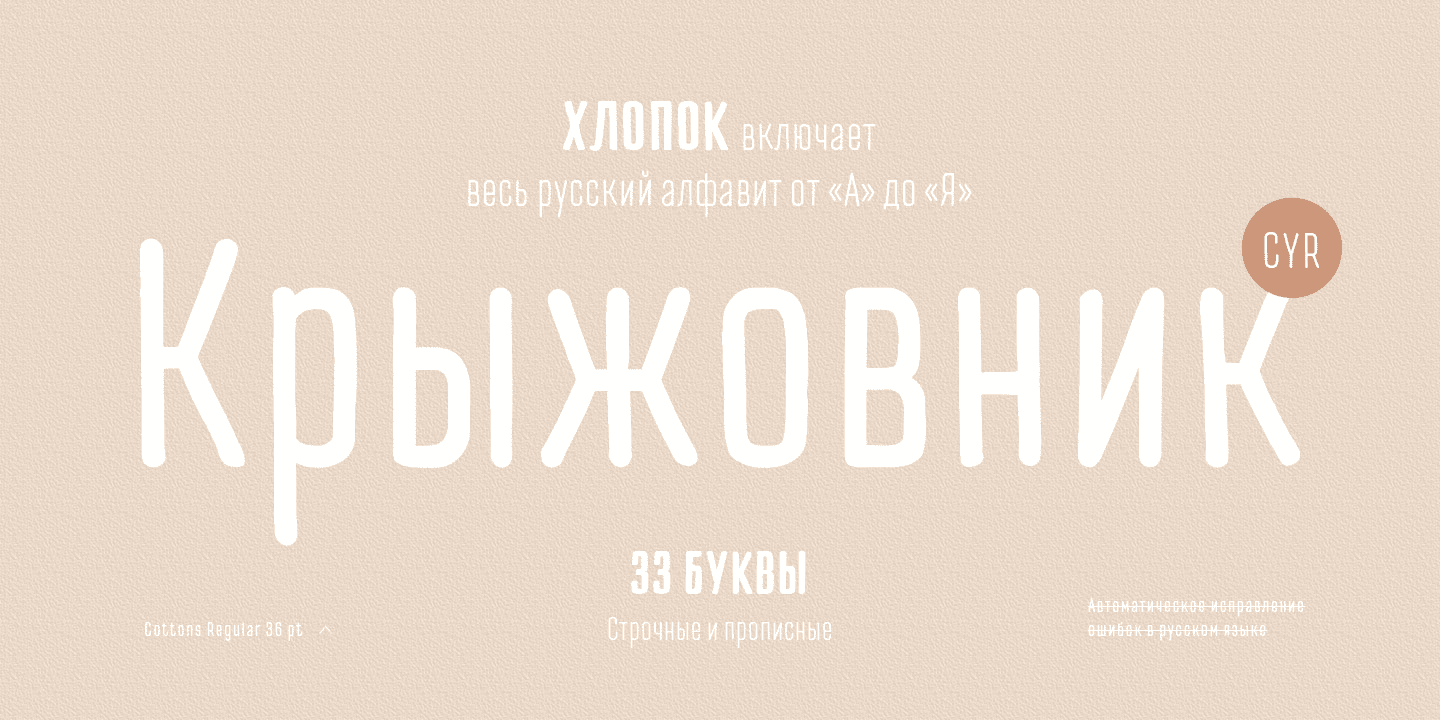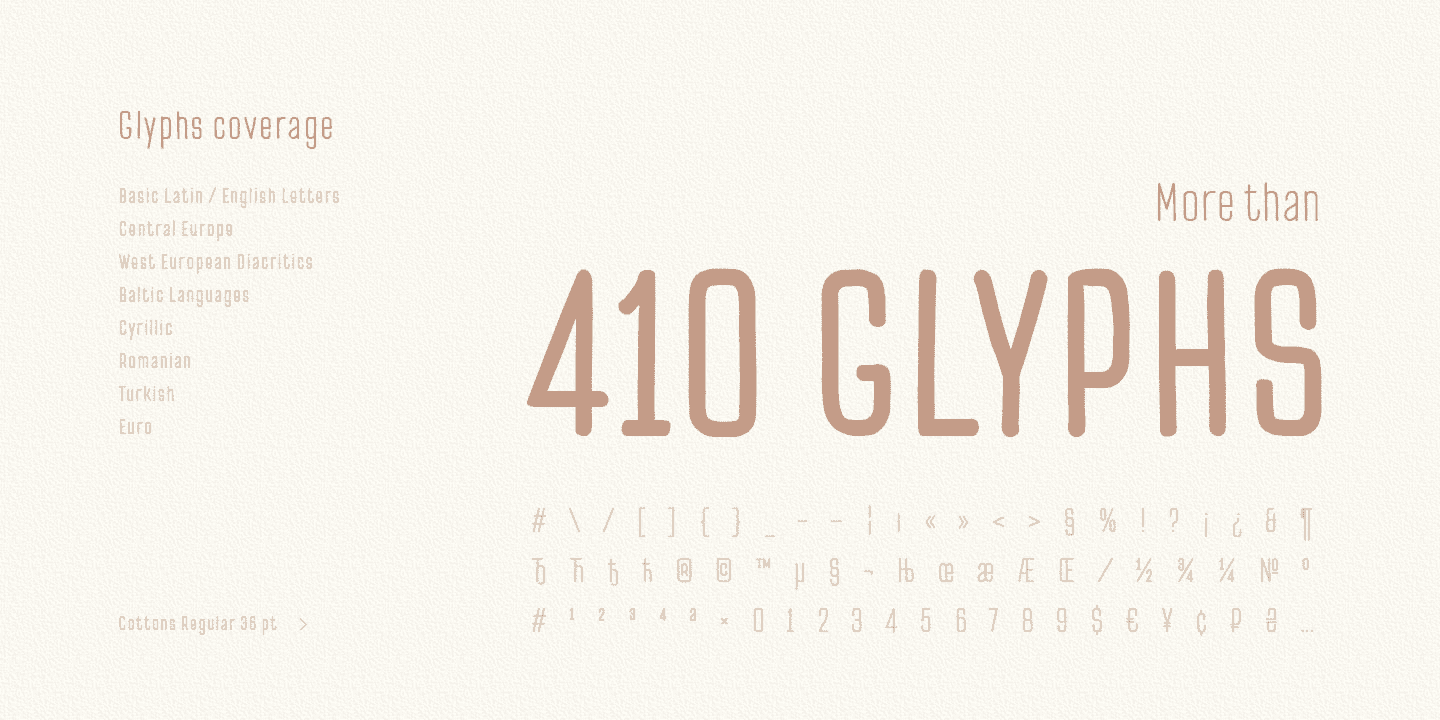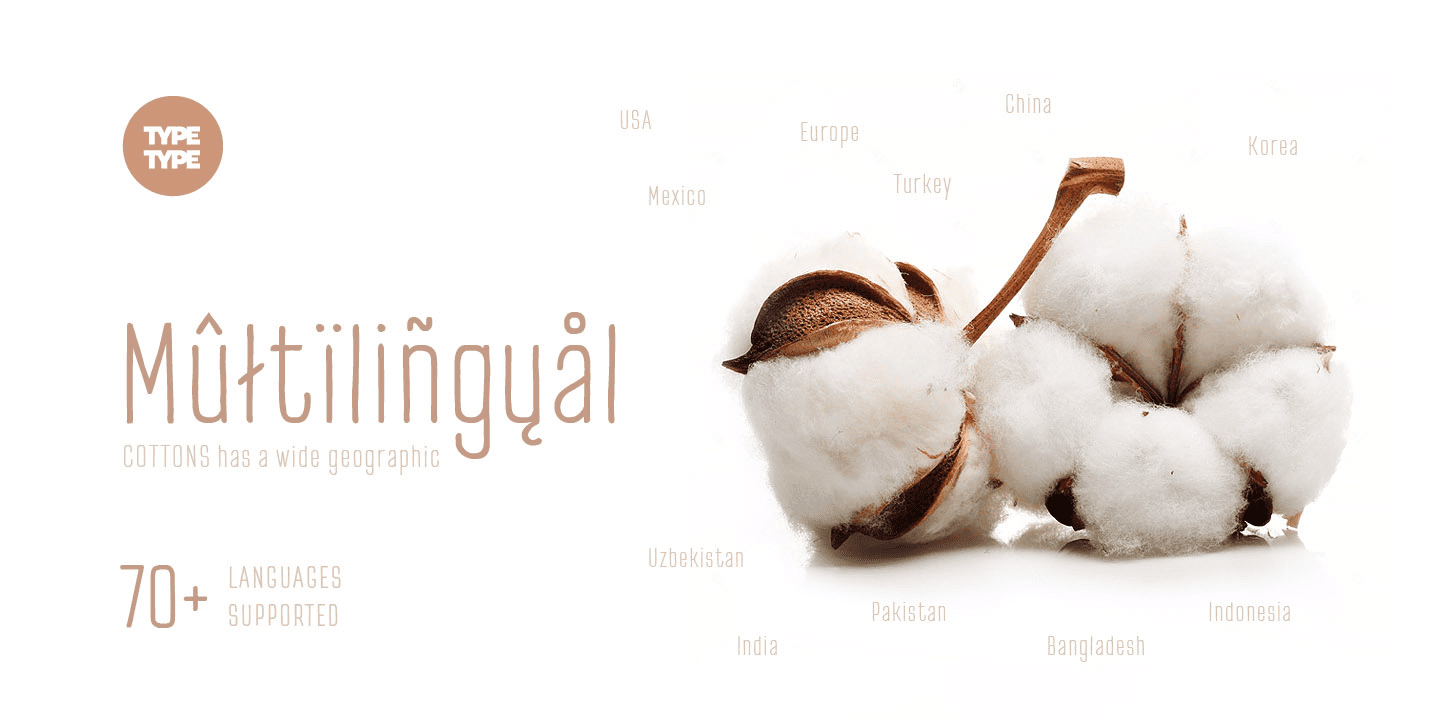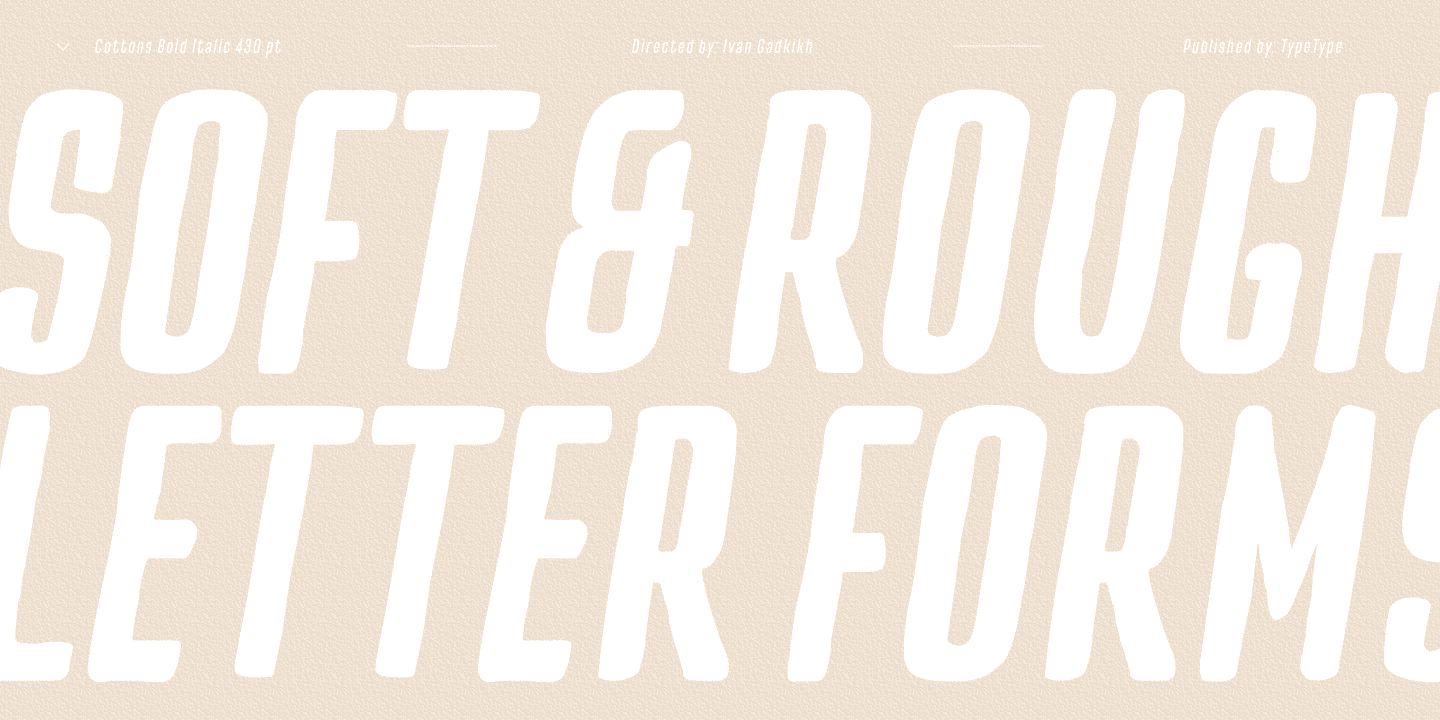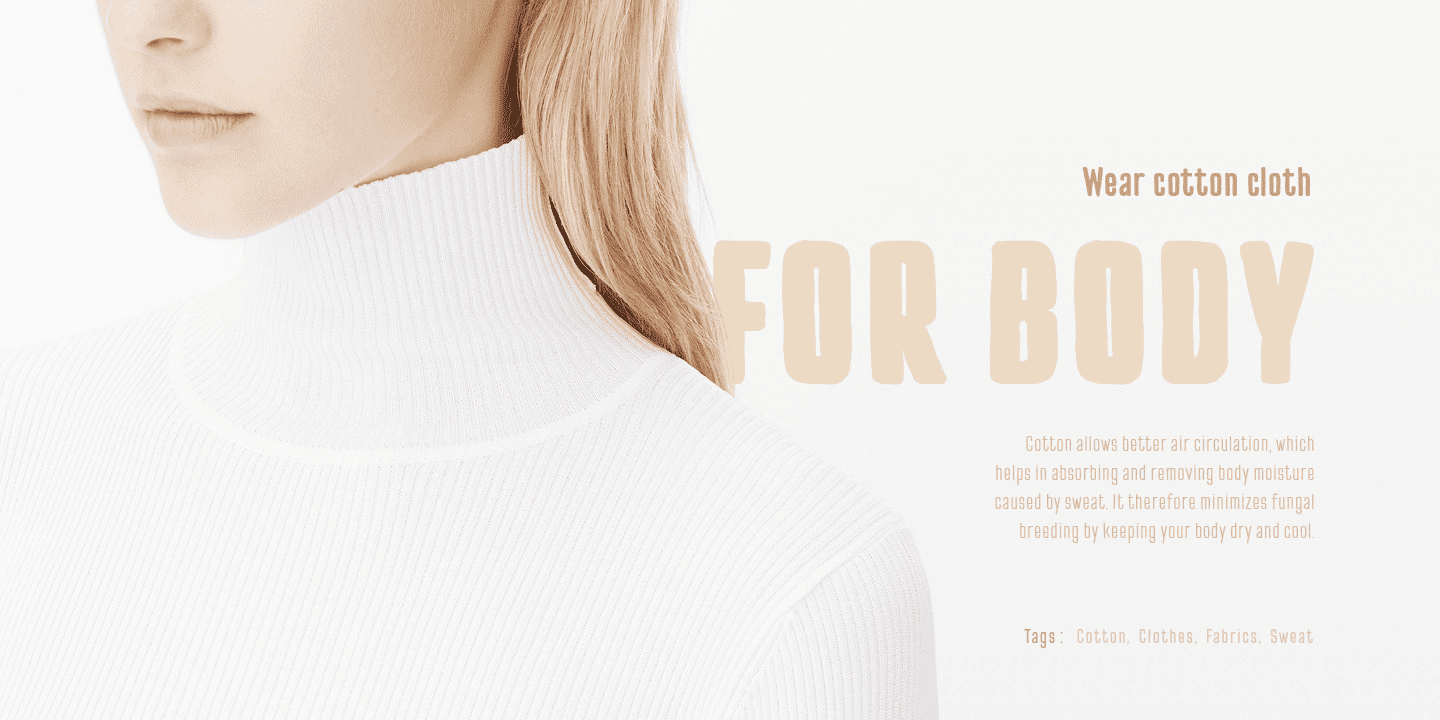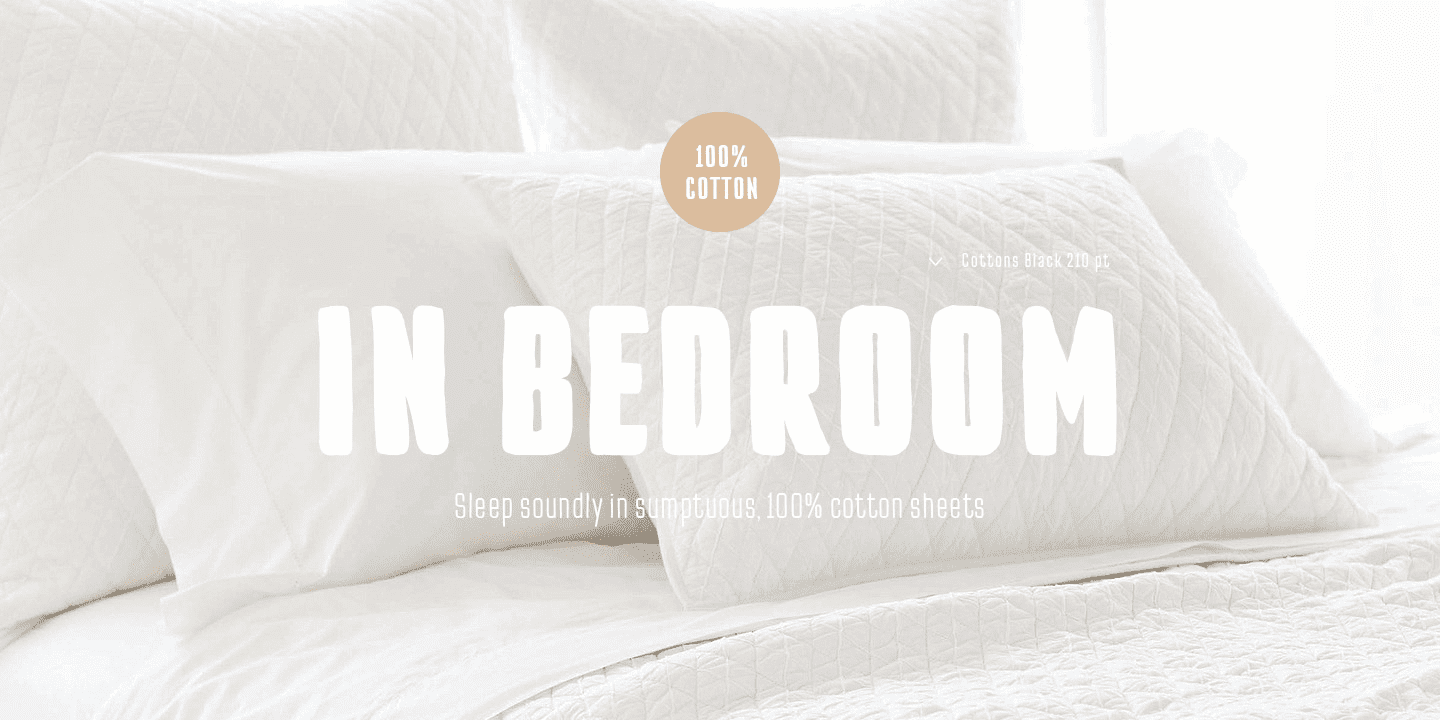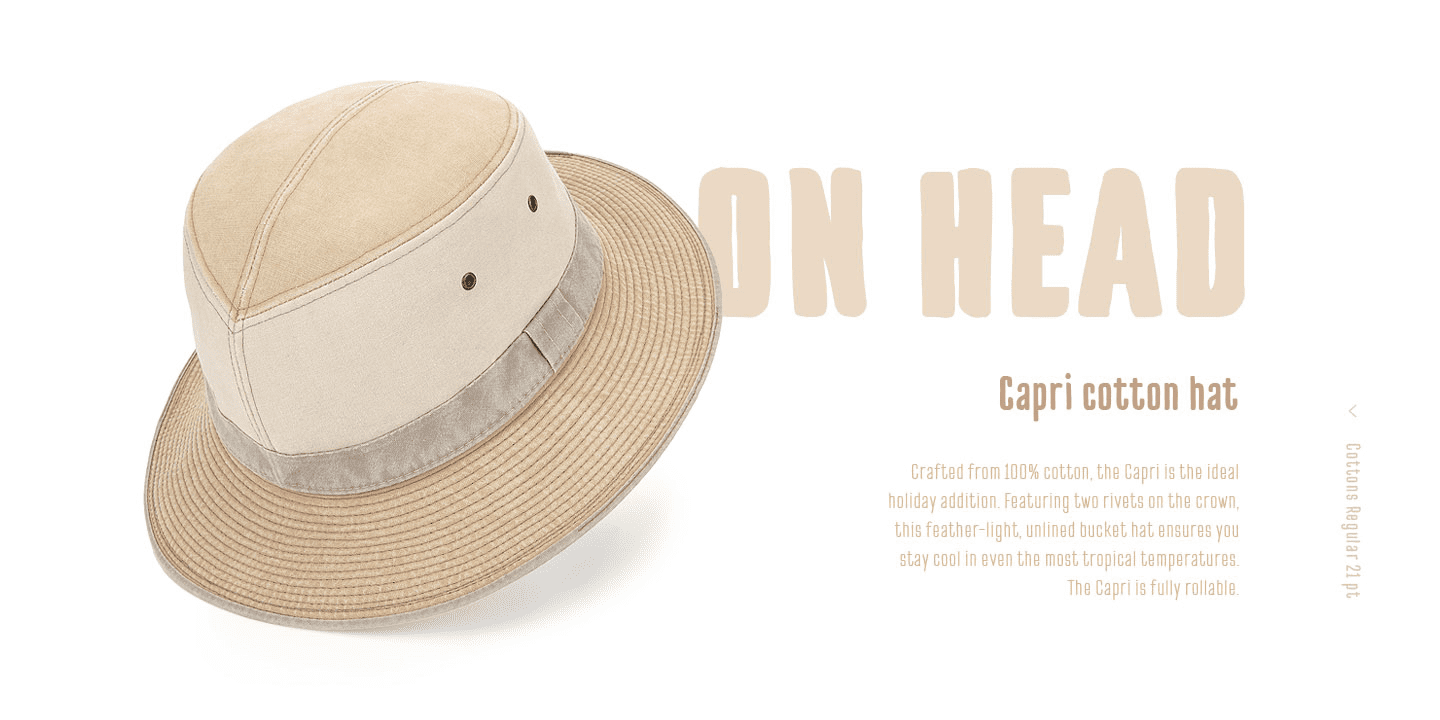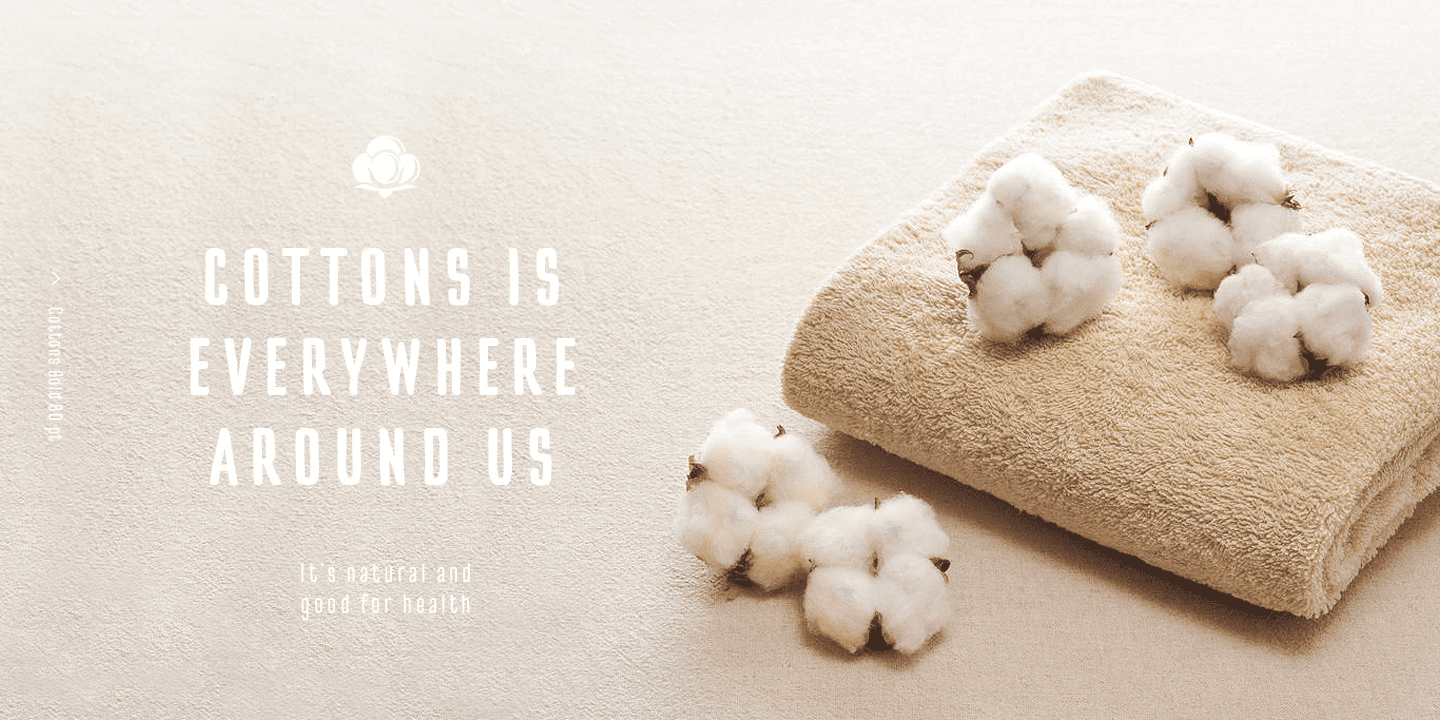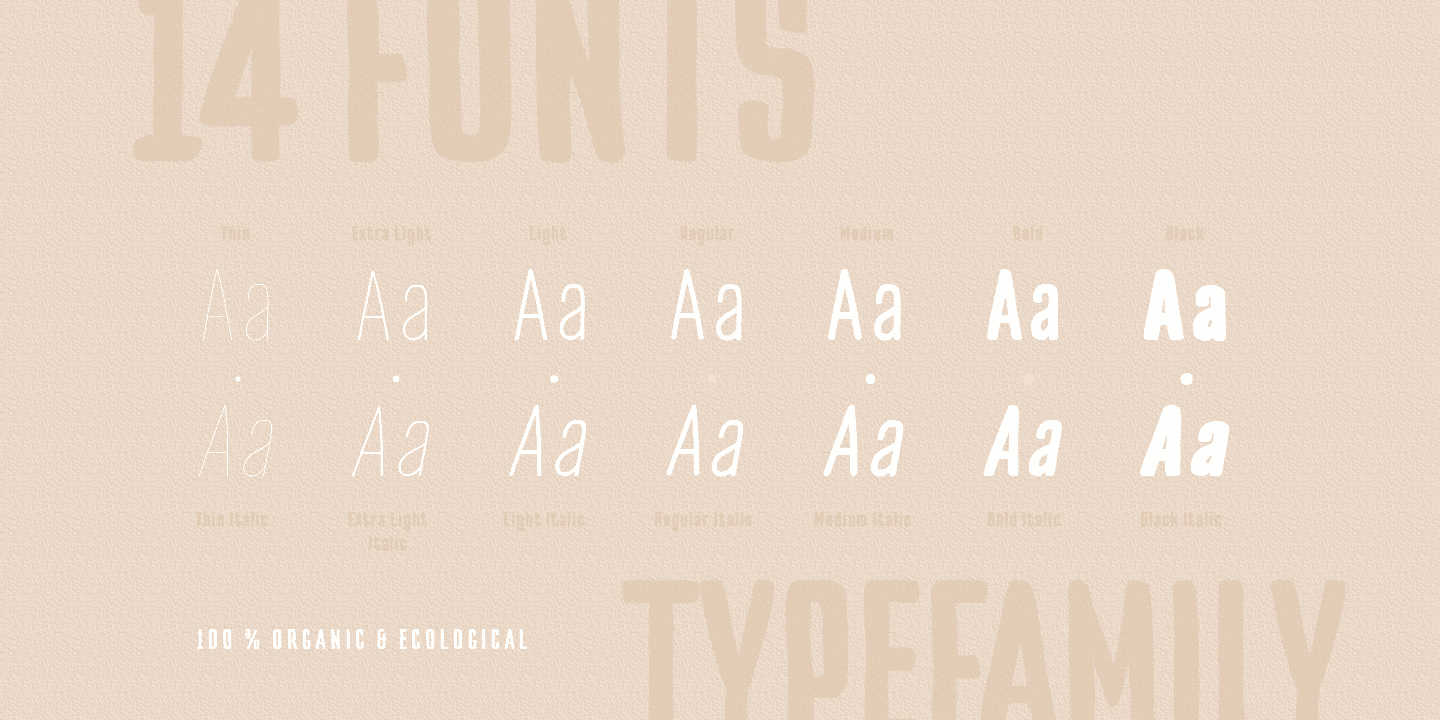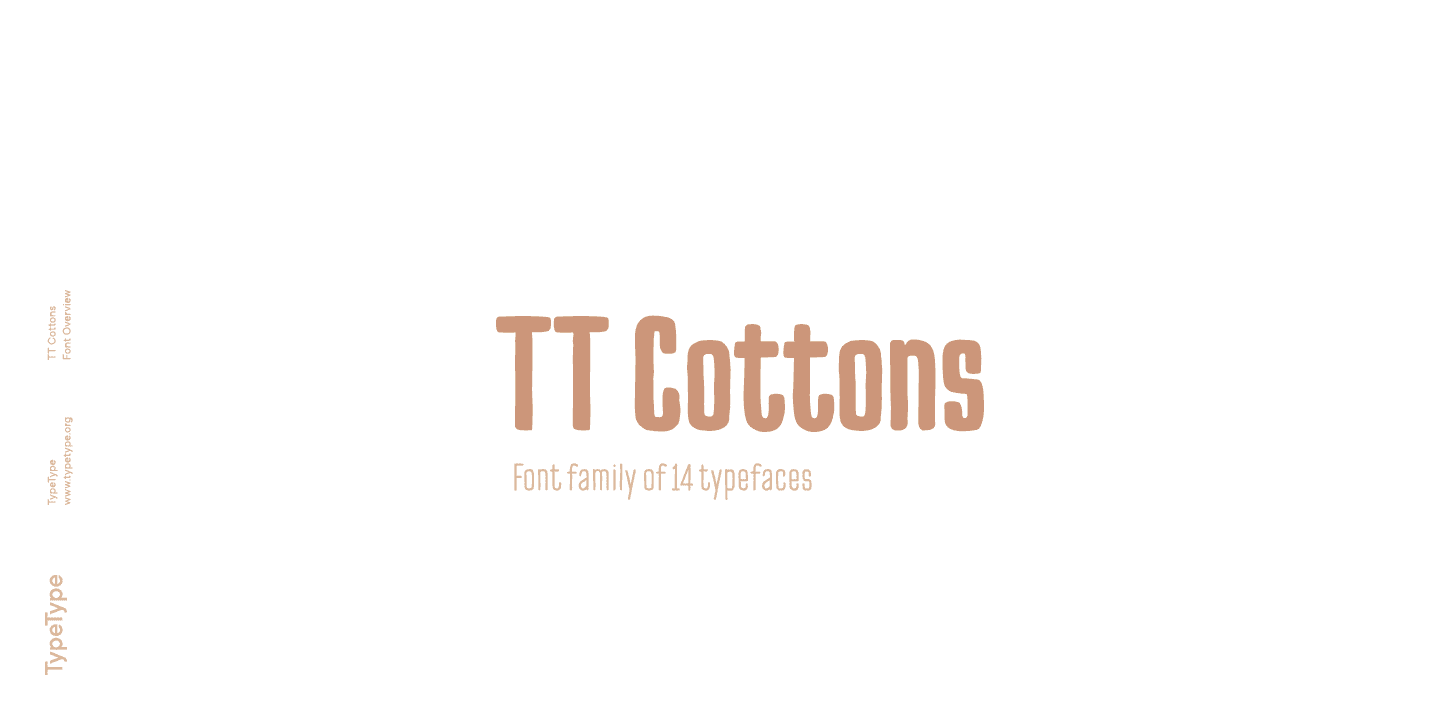
TT Cottons Family (14 fonts)
TT Cottons is your ideal design helper. Cottons is filled with inspiration and coziness that add ease and homey feeling to any surface (any environment). We’ve created a font family that directly reminds of the spring air feeling and hand-made style.
Each separate typeface is created with a real instrument. For instance, the black typeface was painted with a real brush, and the thin one was created with a rapidograph. Next we’ve digitized the fonts.
Thanks to the 7 weights you can easily choose your own Cottons that will perfectly fit into your design layout, and the condensed proportions let you fit a large text array into a small text field.